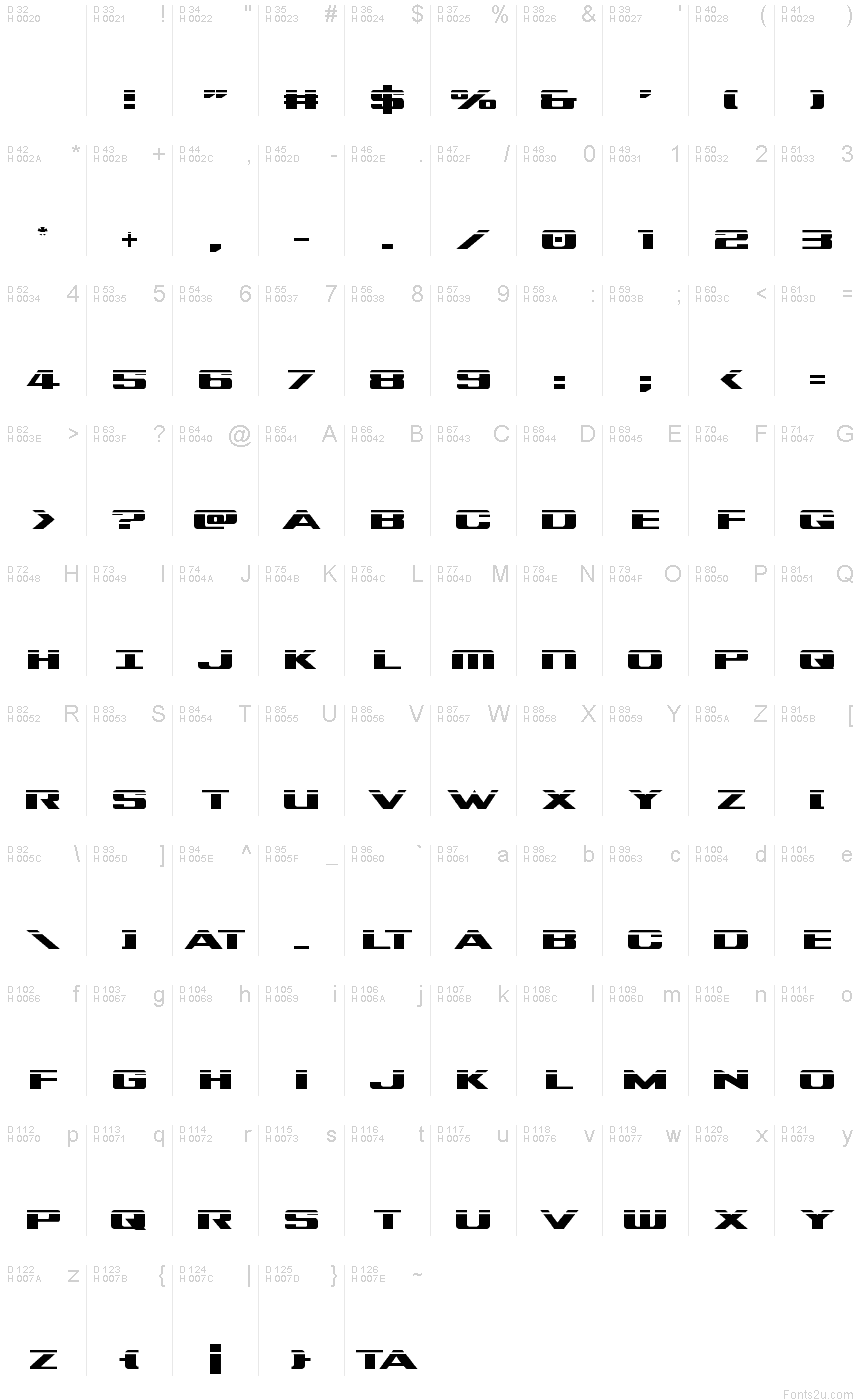
Tigershark Laser, designed in 2013 by Iconian Fonts, is a free modern display font with broad proportions, severe angles, and a hard-edged science-fiction profile. Wide, low letters are sliced by crisp horizontal gaps.
Brands aimed at gamers and technology fans can use its aggressive geometry for esports logos, electronics packaging, digital game launch graphics, and futuristic event posters. In publishing, the repeated cuts can turn a science-fiction cover line into a memorable interface-like graphic rather than a conventional piece of lettering.